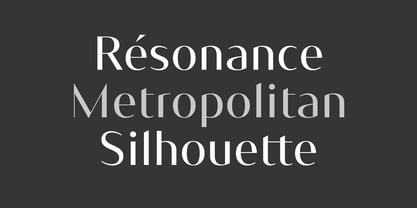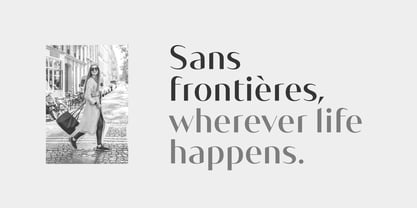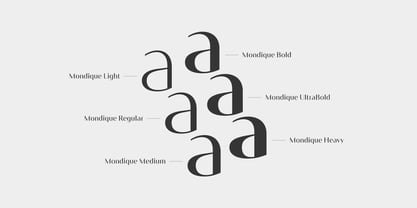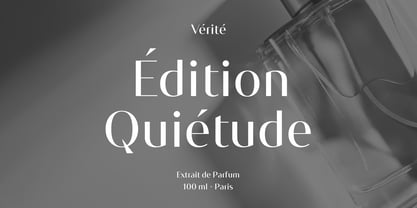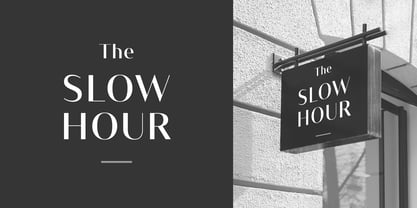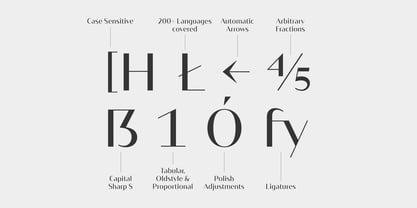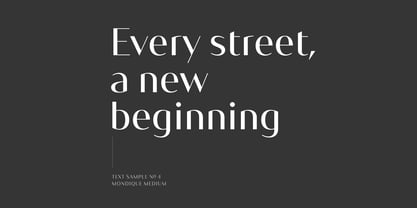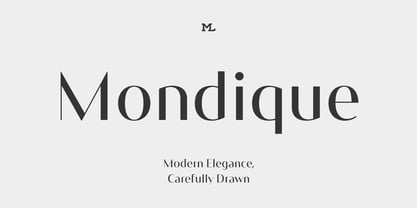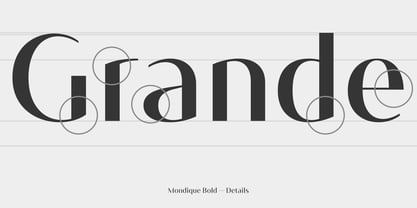
Mondique
by Marc Lohner
The Mondique Font Family was designed by Marc Lohner and published by Marc Lohner. Mondique contains 6 styles and family package options.
Mondique is a sans serif family where high contrast evokes timeless elegance, while its minimalist, modern, and spurless design lends it a distinctly contemporary aesthetic. Sharp terminals and carefully drawn curves create a distinctive rhythm – refined and expressive without excess, balancing a strong visual presence with a calm, sophisticated character. Equally at home in luxury branding, editorial design, packaging, fashion, and premium digital experiences, Mondique brings a polished and confident voice to every application.
The family includes a comprehensive OpenType feature set, with ligatures, case-sensitive punctuation, tabular, lining and oldstyle figures, self-building fractions, superiors and inferiors, arrows, and broad language support. Every detail has been carefully refined to provide a reliable tool for contemporary typography.